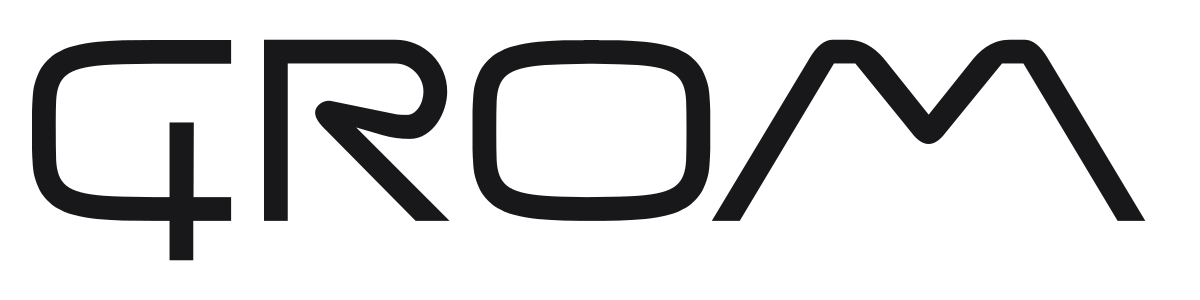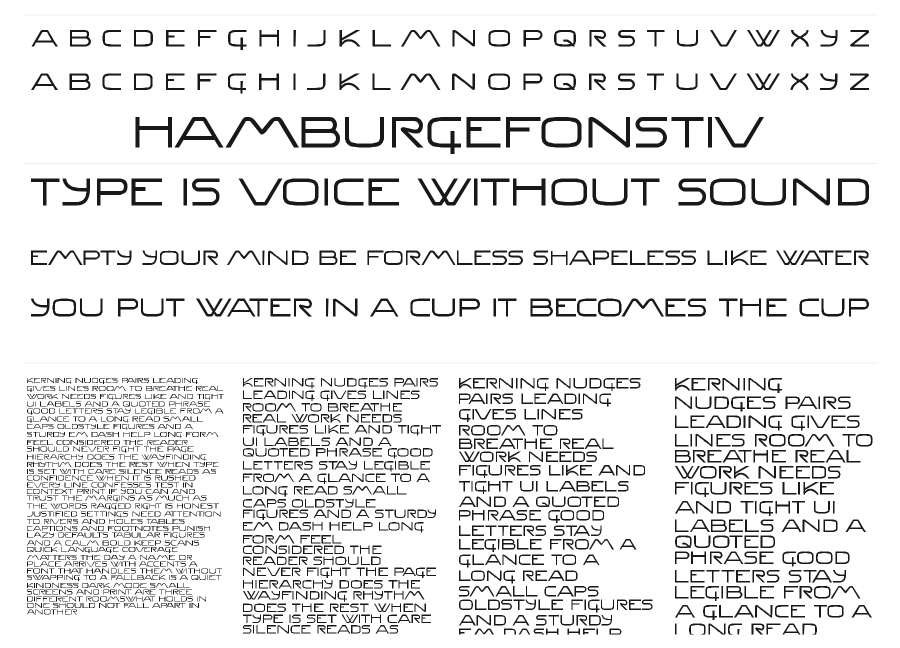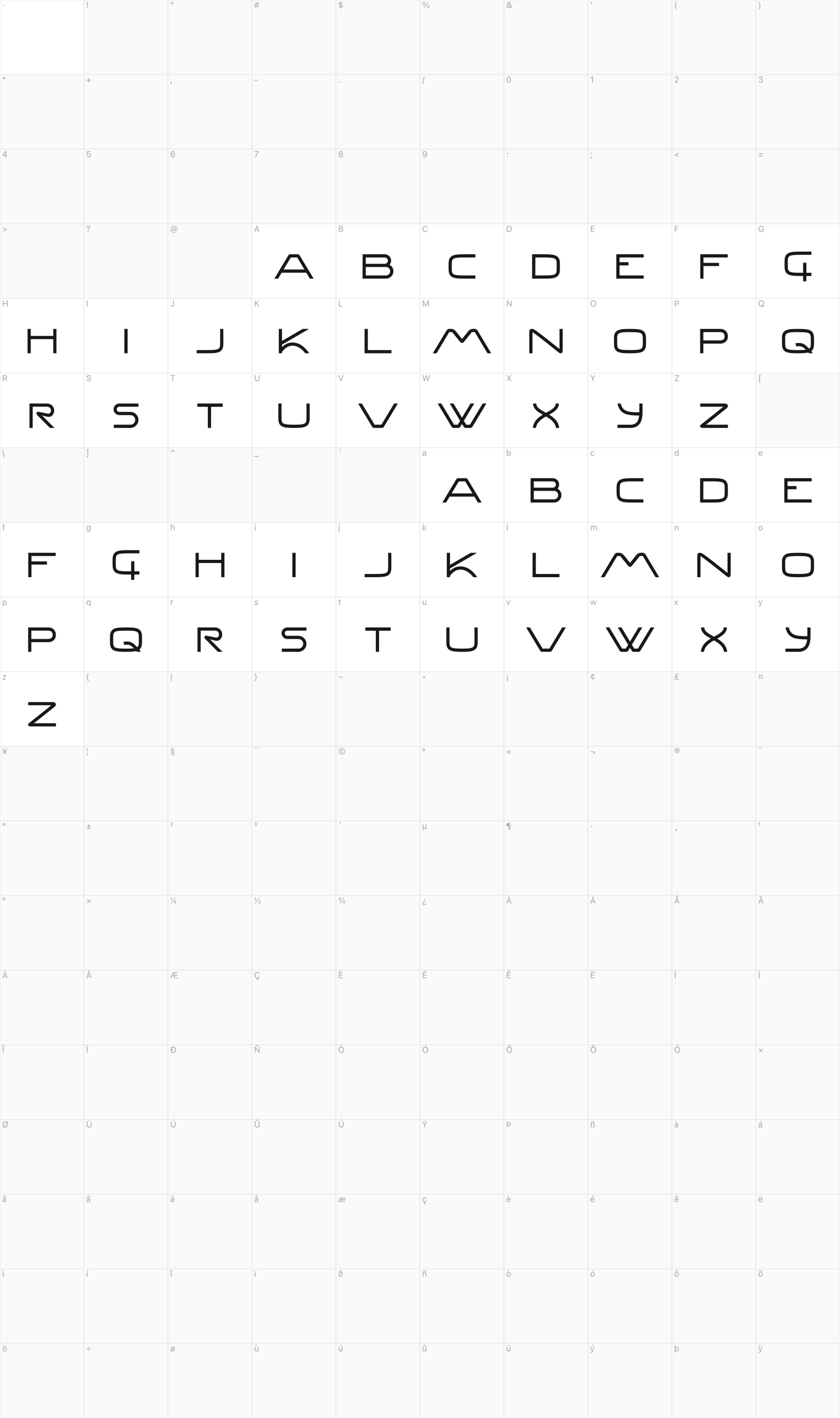
Grom
Grom is a geometric techno sans with squared terminals and near-monoweight strokes that read as precisely engineered. Its light weight and wide proportions give it an open, airy quality that keeps it feeling modern rather than aggressive. A natural choice for tech branding, gaming interfaces, and anything reaching for a near-future aesthetic.